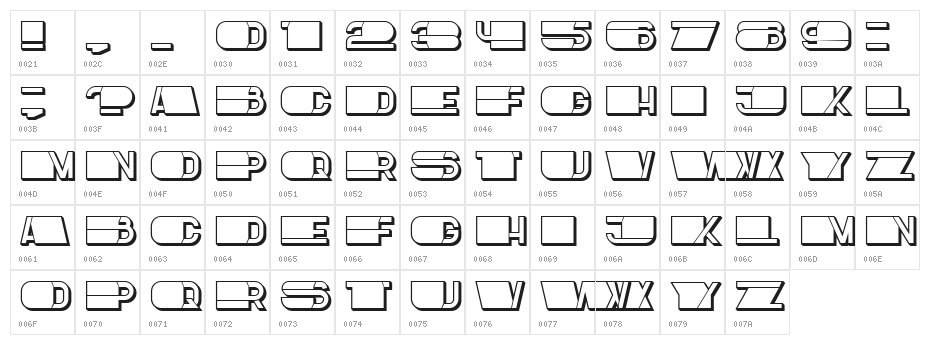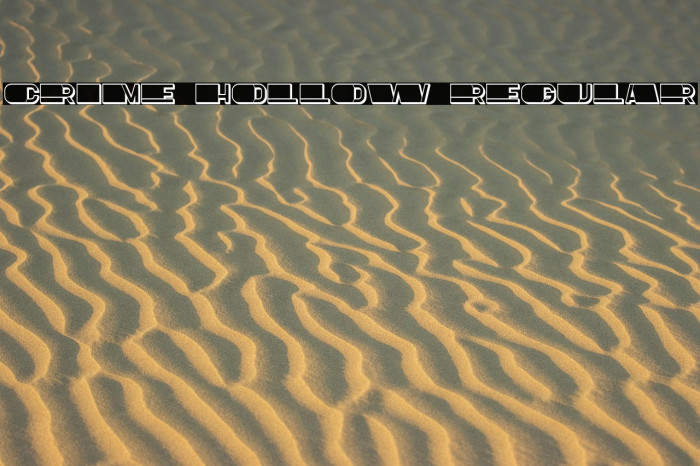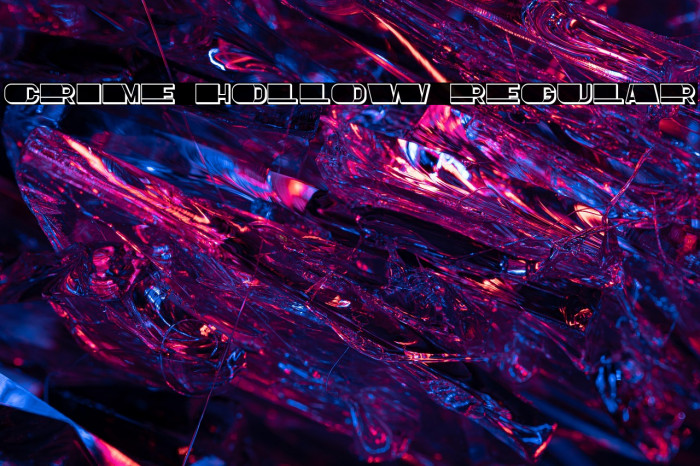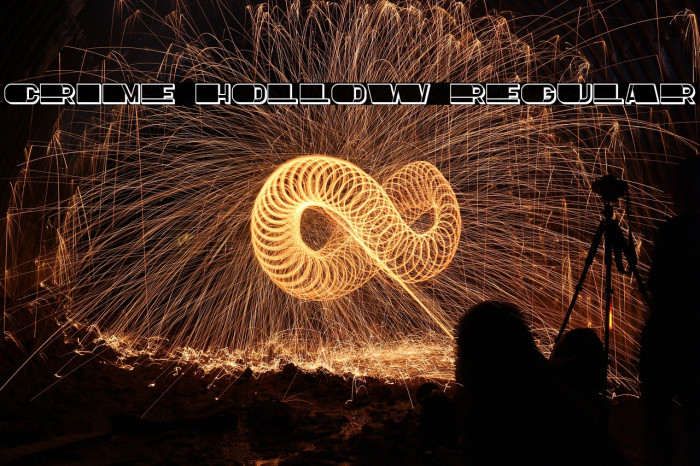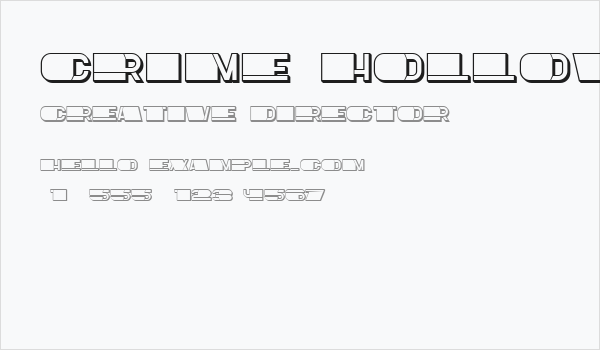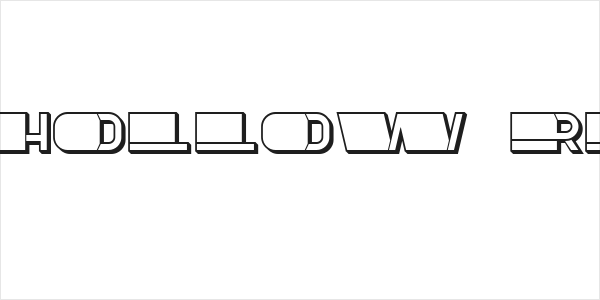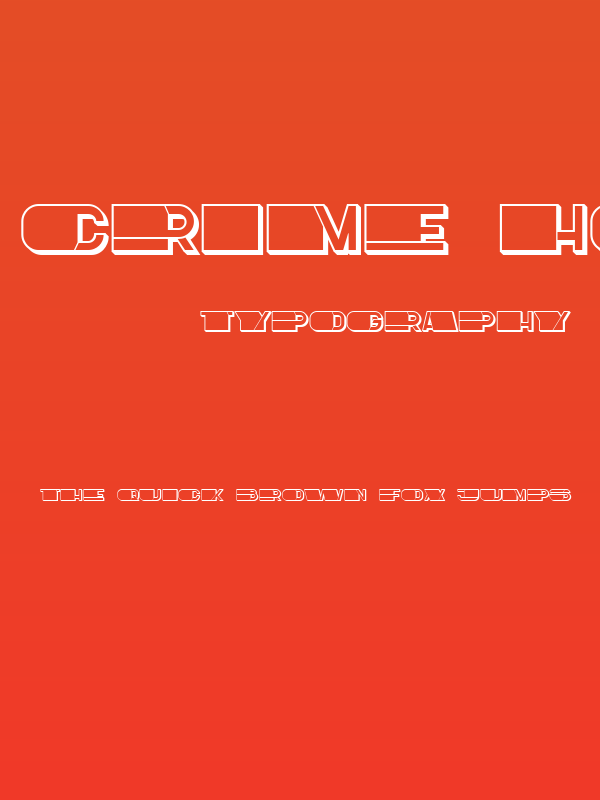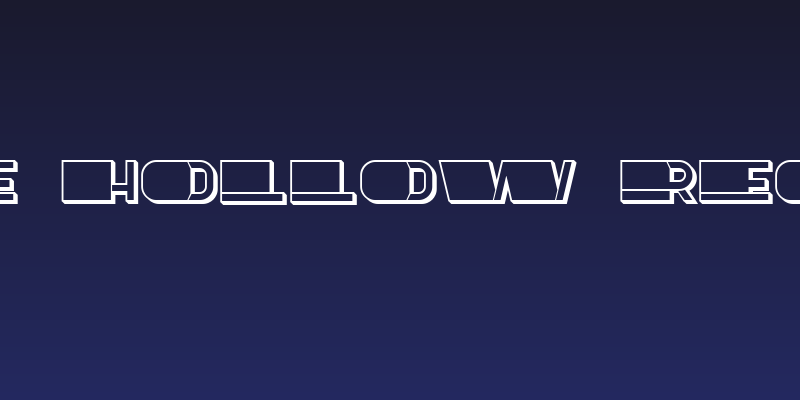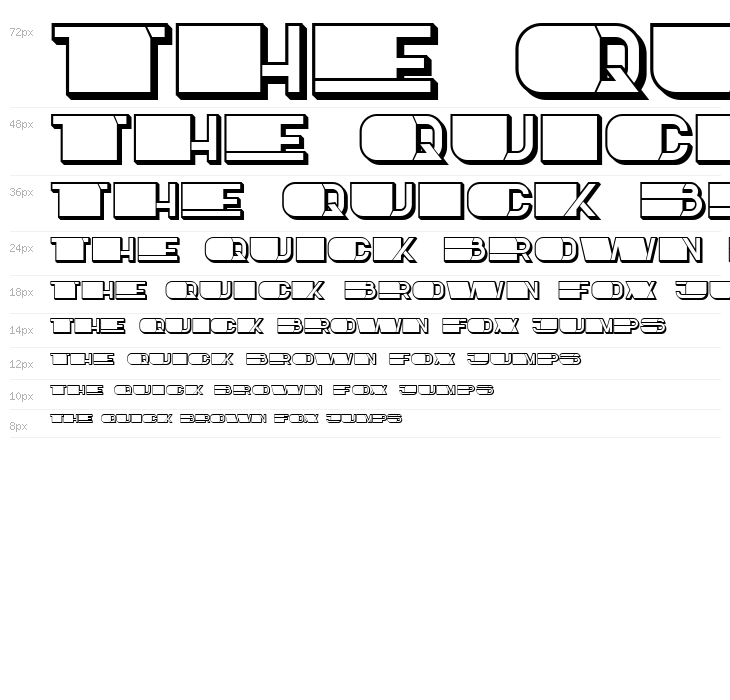
Crime Hollow Regular Font
Crime Hollow Regular Description
This font features a bold, geometric style with a hollow interior, giving it a unique and modern appearance. The characters are constructed with thick outlines, creating a sense of depth and dimension. The uppercase and lowercase letters maintain a consistent design, emphasizing a futuristic and digital aesthetic. The numbers and special characters follow the same structural pattern, ensuring uniformity across all glyphs. This font's distinct look makes it ideal for projects that require a standout, eye-catching typeface.
| Proposed Projects | Ideal for branding, posters, digital media, and any project needing a futuristic and bold typeface. |